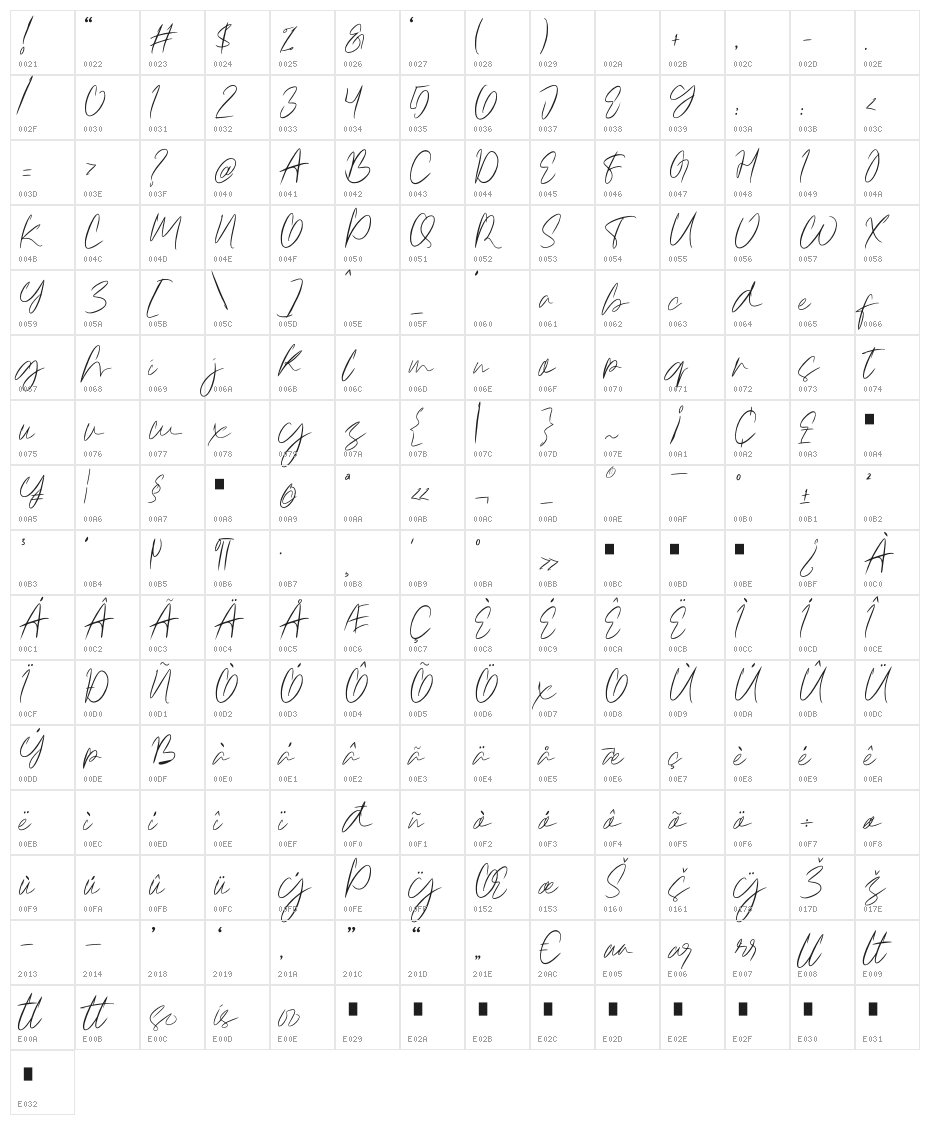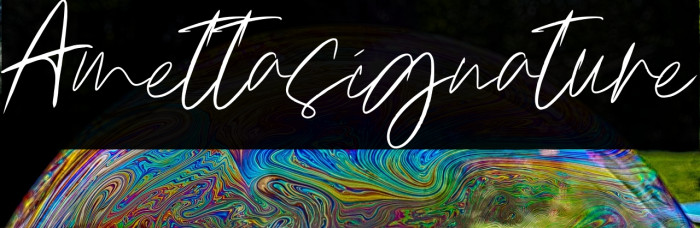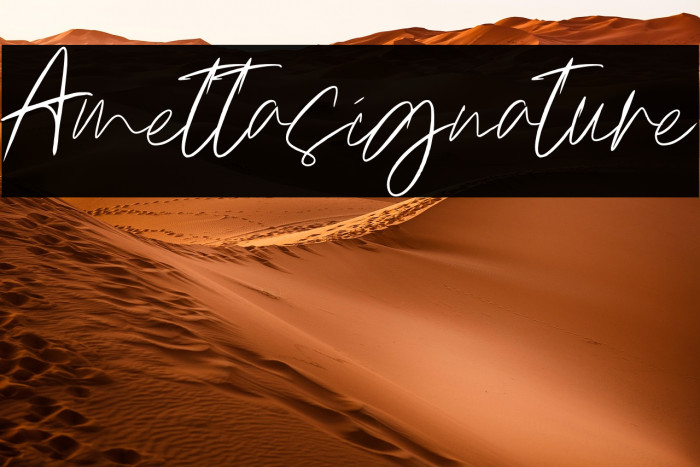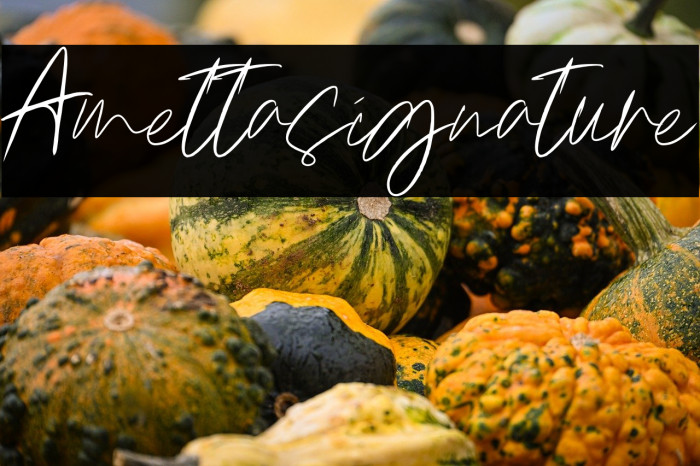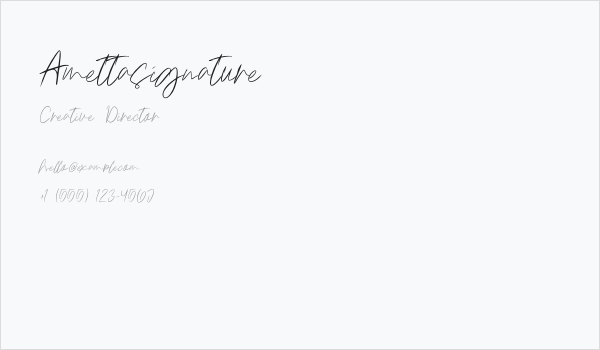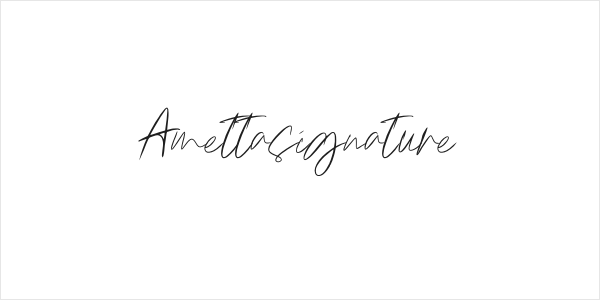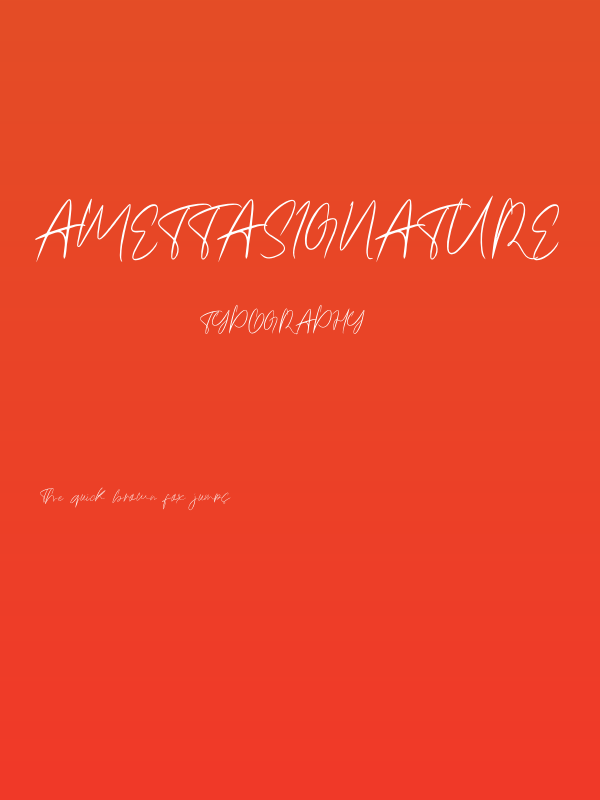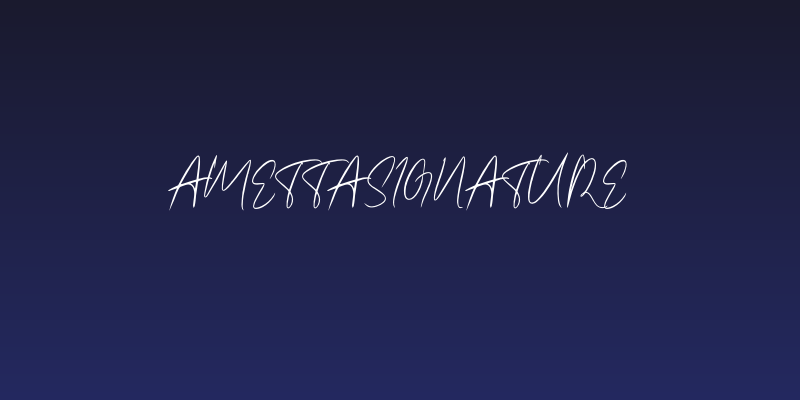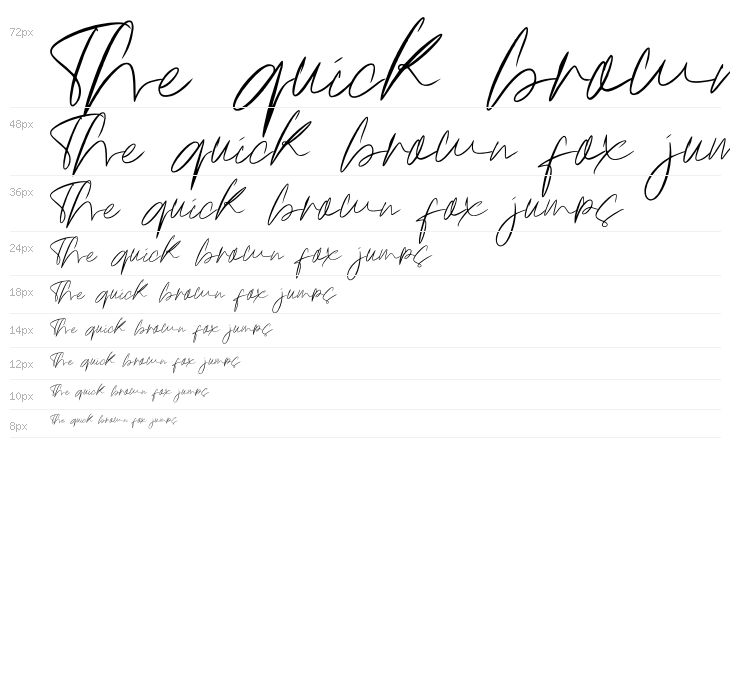
Amettasignature Font
Amettasignature Description
This font exudes a modern and elegant handwritten style, characterized by its fluid and cursive strokes. The uppercase letters are bold and dynamic, with a slight slant that adds a sense of motion and grace. The lowercase letters maintain a consistent flow, seamlessly connecting in a way that mimics natural handwriting. The numerals are distinct yet harmonious with the overall style, offering a unique flair. Special characters are creatively integrated, maintaining the font's cohesive aesthetic. This font is perfect for projects that require a personal touch, such as invitations, branding, and artistic designs.
| Use Case | Logos, Invitations, Artistic designs |
| Proposed Projects | Ideal for invitations, branding, artistic designs, and personal projects. |